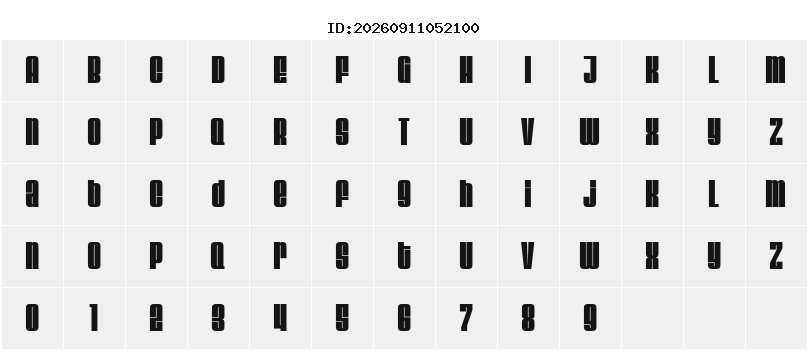
Velvenda Megablack Preview
• Font Name: Velvenda Megablack
• Full Font Name: Velvenda Megablack
• Designer: Ray Larabie
About Velvenda Megablack.ttf
Velvenda Megablack.ttf is a modern, elegant sans-serif font designed for ultimate readability and visual harmony. Perfect for branding, headlines, web design, and print materials.